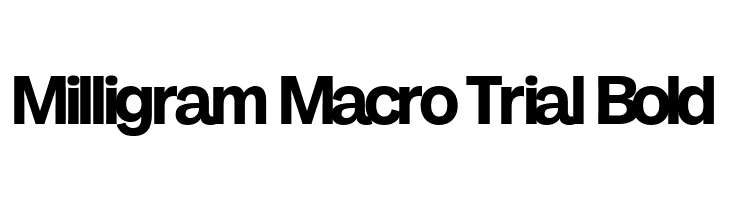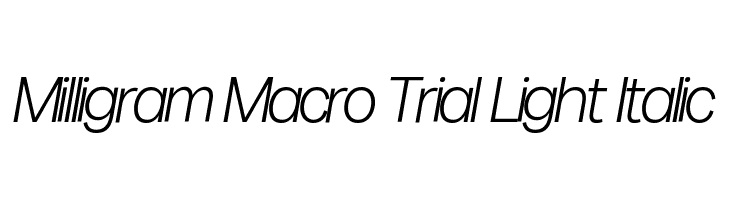
A modern sans-serif font with a clean, geometric design and uniform stroke width.
A bold, modern sans-serif font with strong, uniform strokes.
A modern, italic font with bold, slightly condensed characters and medium contrast.
A sleek, thin, and italicized modern font with elegant elongated characters.
A bold, modern typeface with clean, geometric lines and rounded edges.
A bold, italicized font with thick strokes and a modern, impactful style.
A bold, modern sans-serif font with clean lines and strong presence.
A sleek, modern, light italic typeface with geometric lines and minimalistic design.
A bold, italic font with a modern and dynamic style.
A thin, geometric font with a modern and minimalist design.